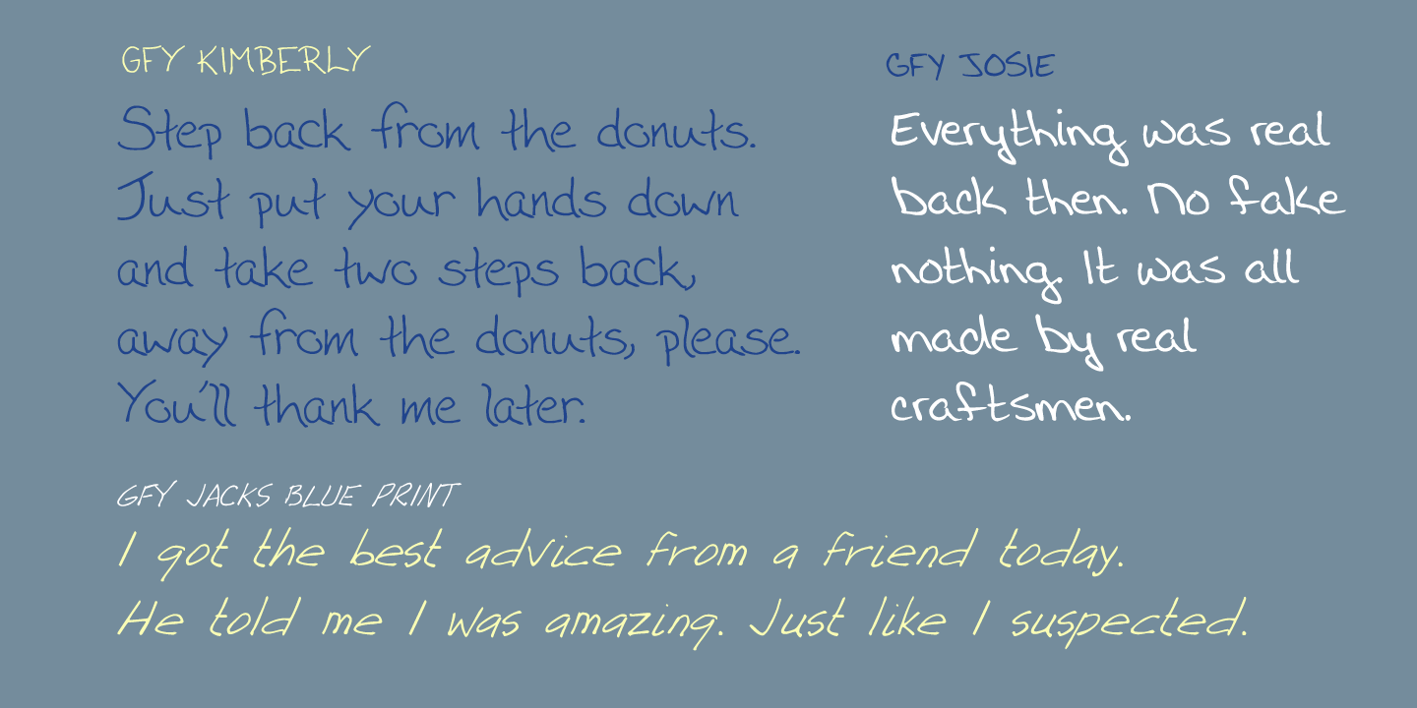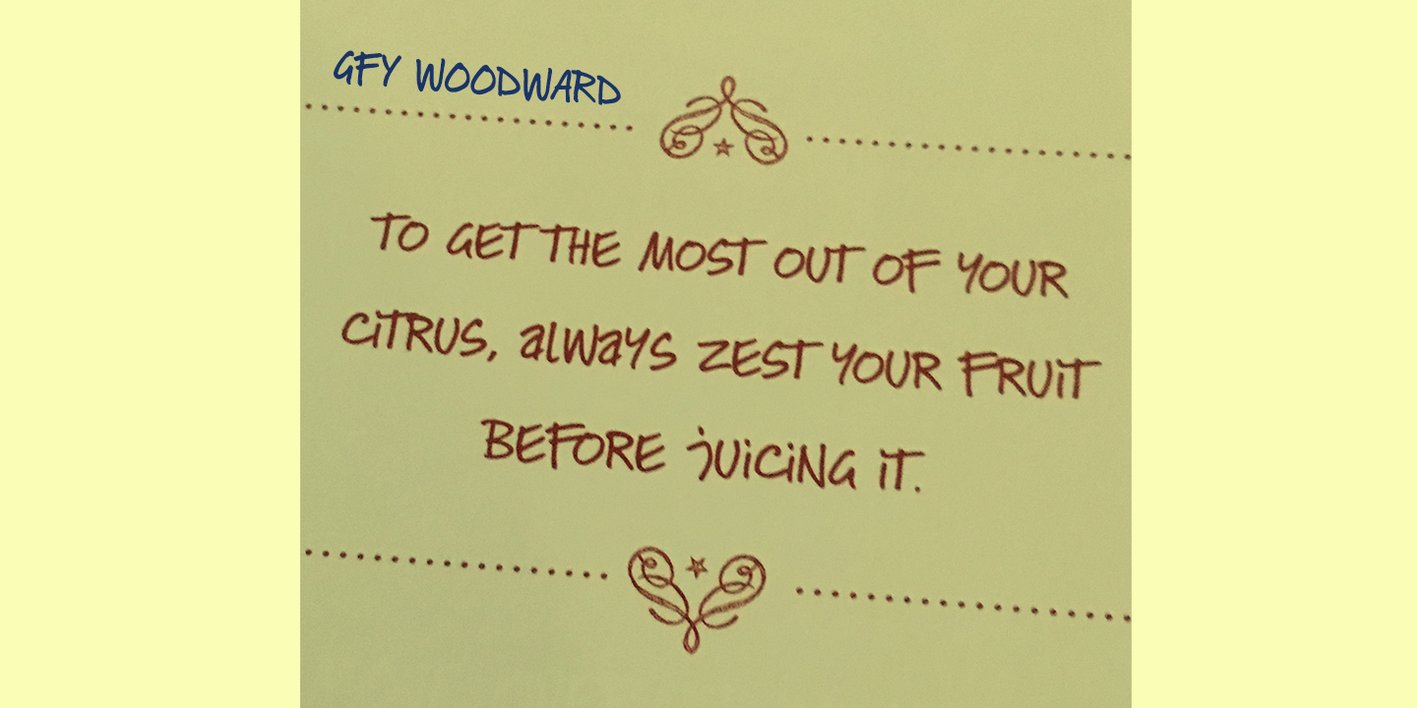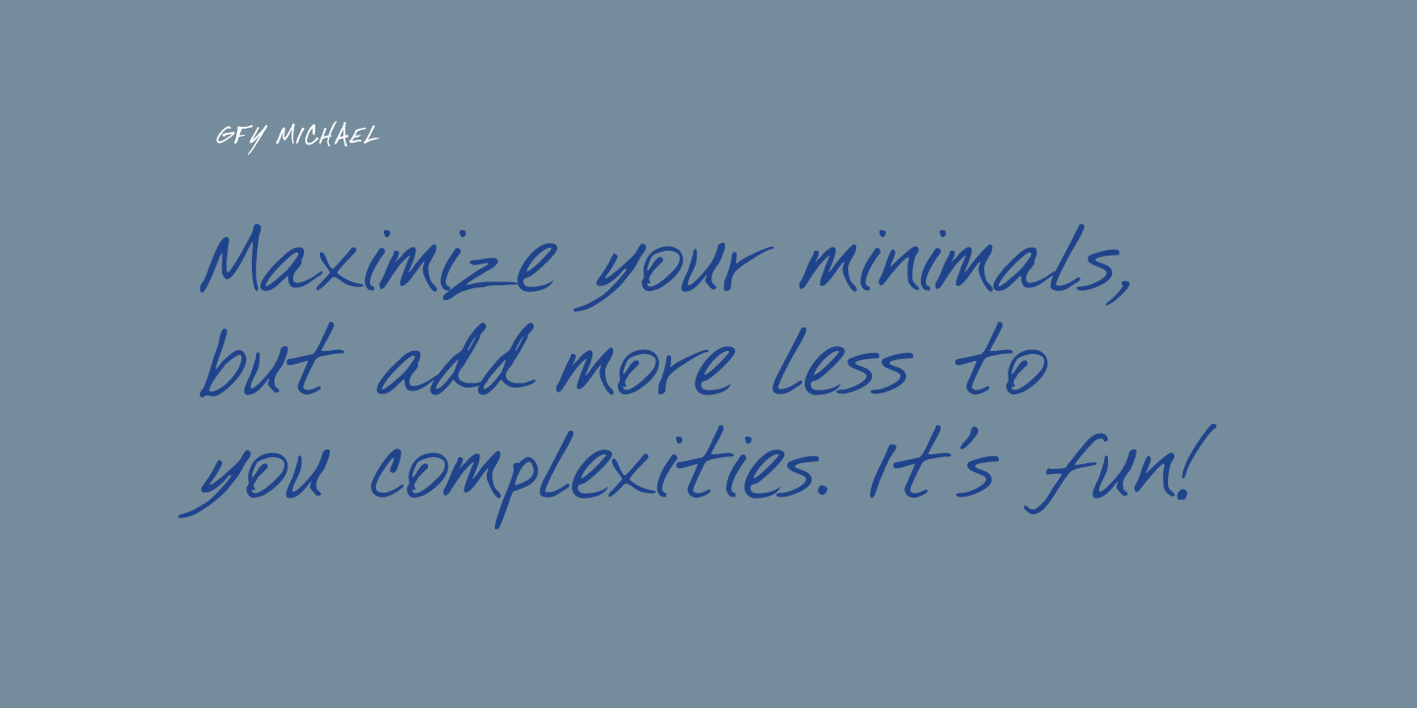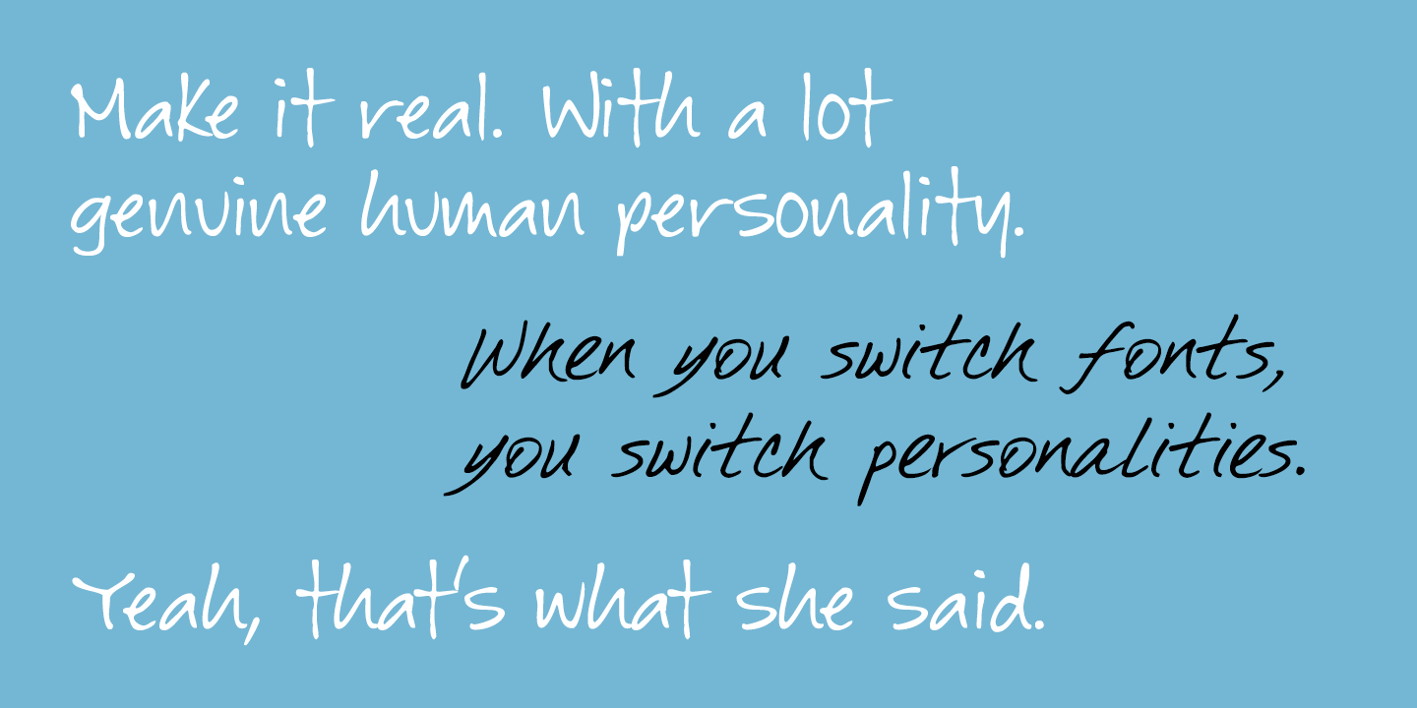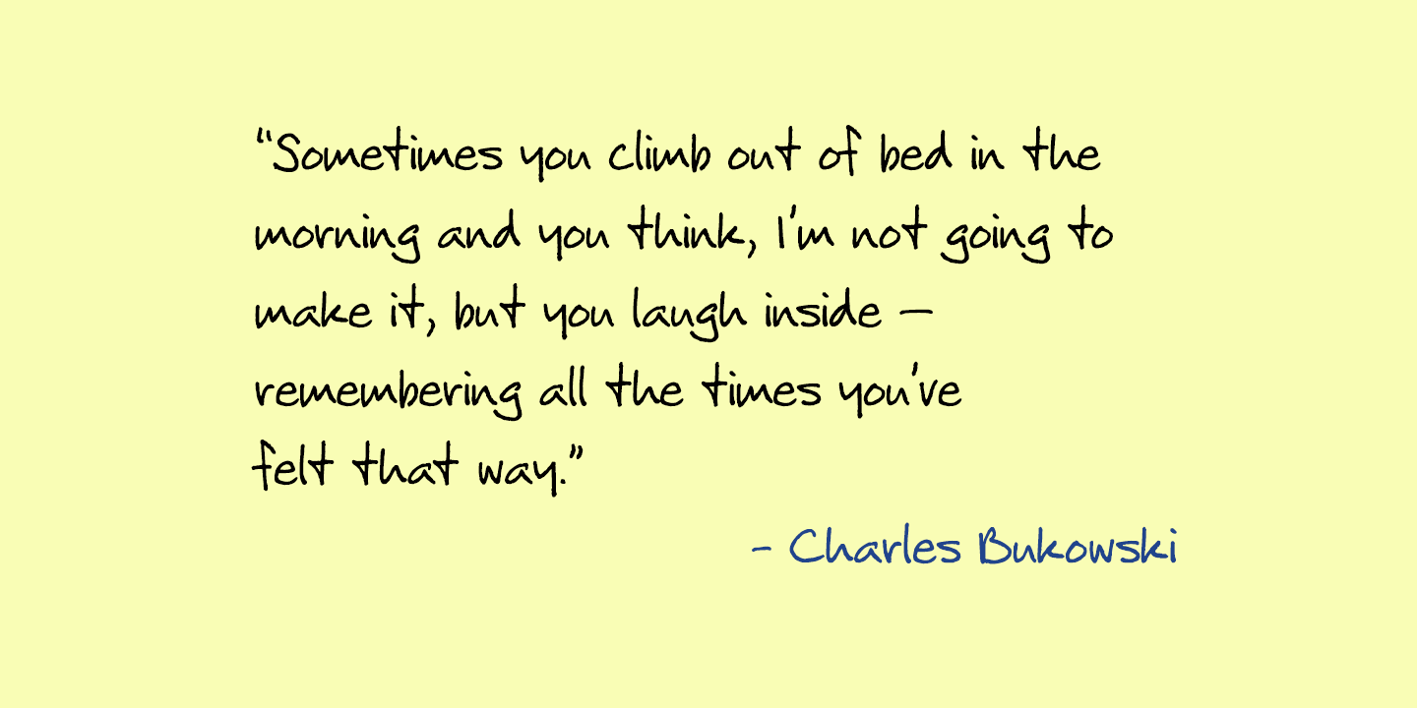
GFY Handwriting Fontpak
Filled with expression and eccentricities, this fontpak features a great variety of personality types. Buy these fonts and you'll be able to type in many voices from girly bubble letters (GFY Loopy) to a mature woman's penmanship (GFY Marcie and GFY Sunny), from stoic architectural print (GFY Thornesmith and GFY Jack's Blue Print) to loose casual styles (GFY Brutus, GFY Hey Steve, GFY Josie, GFY Palmer, GFY Pollak, GFY Ralston, GFY Shue, and GFY Sidney). Some fonts are arty and fashionable (GFY Jeanna, GFY Mancini, GFY Peggy, and GFY Woodward), while others are unusual and quirky (GFY Aunt Susan, GFY Kersti, GFY Kimberly, and GFY Michael).